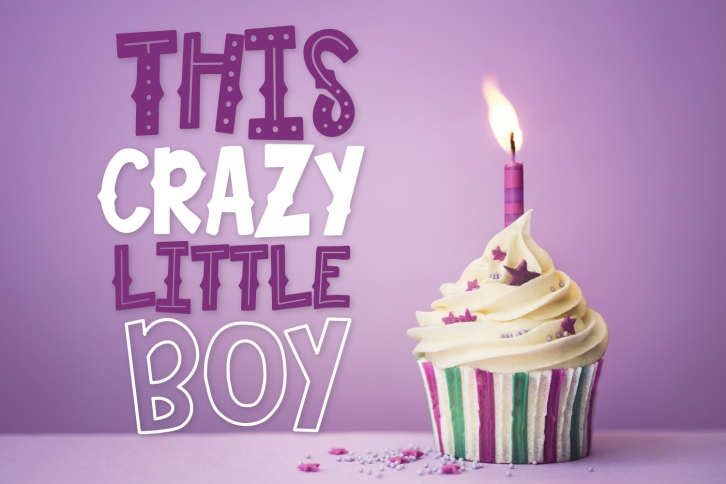
This Crazy Little Boy - A Fun Mixed Style Font Duo Download
This Crazy Little Boy is a beautiful font that was designed by Justina Tracy. It's a great choice for designers and creatives who need such a font. It was released on September 2, 2018 and the file size is 8.29 MB. This Crazy Little Boy may give a more youthful, expressive and casual look to your project. It is a very beautiful, refined, elegant, and high-quality font.